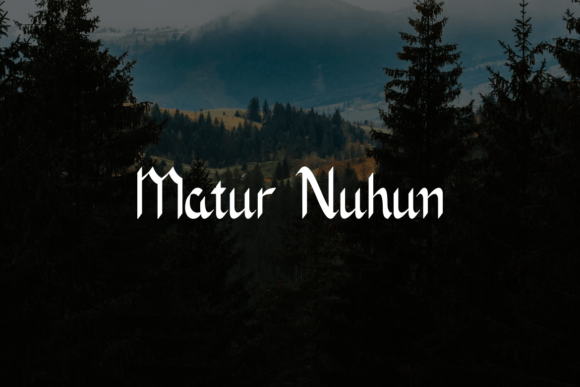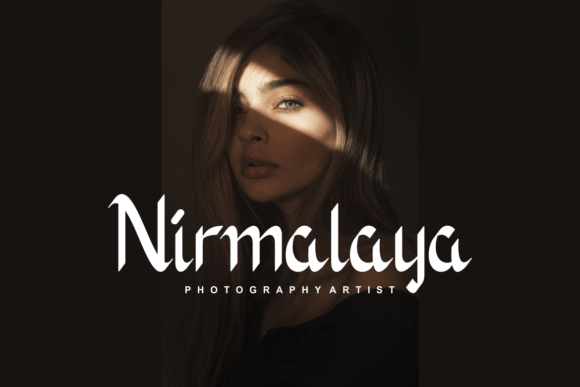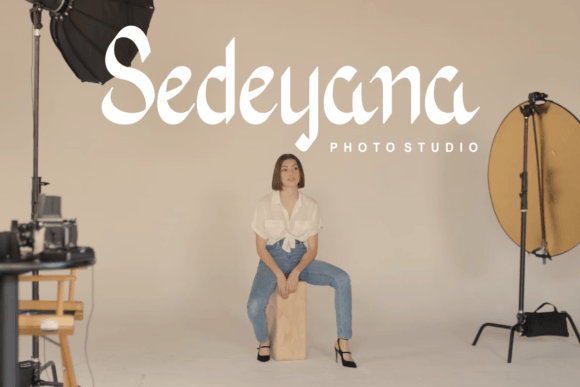
Introduction to Nerstuky Font
Nerstuky is an elegant and bold serif font.
Fall in love with its incredibly versatile style and use it to create gorgeous wedding invitations, beautiful stationary art, eye-catching social media posts, and much more .